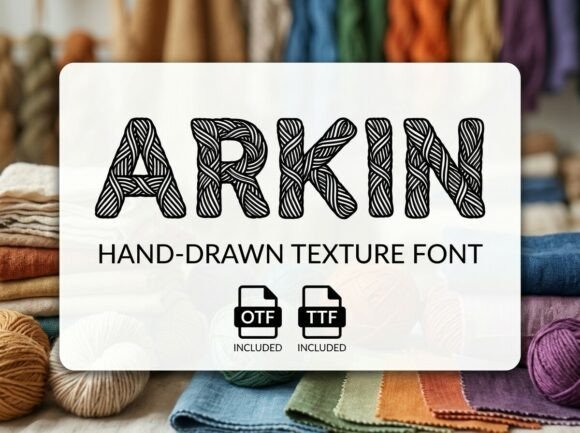
Discovering the Perfect Blend of Texture and Style
As a designer, have you ever found yourself searching for the perfect font to capture the essence of your latest project? You know, that elusive combination of texture and style that transports your audience to a world of handmade charm? For me, that moment came when I stumbled upon the Arkin Font – a tactile display typeface that embodies the perfect blend of traditional fiber arts and modern artisanal branding.
With its bold, rounded letterforms and intricate internal texture, the Arkin Font is a game-changer for designers looking to add a touch of handmade personality to their work. Whether you’re designing for an independent knitting studio, a boutique fabric shop, or a sustainable textile brand, this font is sure to make your designs stand out.
- Unique Characteristics: Arkin Font features a unique blend of modern and vintage elements, with intricate details and subtle textures that add depth and visual interest.
Arkin Font Review
First impressions are everything, and the Arkin font has a certain je ne sais quoi that catches my eye ✨. The unique combination of rounded edges and sharp lines creates a fascinating contrast that makes it stand out in digital and print designs. The font family is also quite extensive, with a wide range of weights and styles to choose from.
- The Arkin font is highly versatile and can be used for a variety of design projects, from logos and branding to body text and UI elements.
- Its modern and sleek aesthetic makes it a great fit for contemporary designs, especially those in the tech and creative industries.
- The font is highly legible, even at smaller font sizes, which is a must-have for digital designs.
However, I do have a few concerns ⚠️. One of the main limitations of the Arkin font is its lack of support for certain languages, which may limit its usability for multilingual designs. Additionally, some users may find the font too bold or overpowering, especially in body text.
Overall, I think the Arkin font is a solid choice for designers who want a unique and modern font that can add some personality to their designs. While it may have some limitations, its versatility and legibility make it a great option for a wide range of design projects.
Getting the Most Out of Arkin Font
Arkin Font is commonly used in:
- Logo design and branding.
- Typography-based designs and illustrations.
- Editorial and publishing designs.